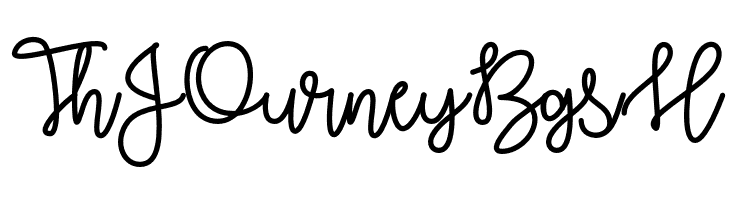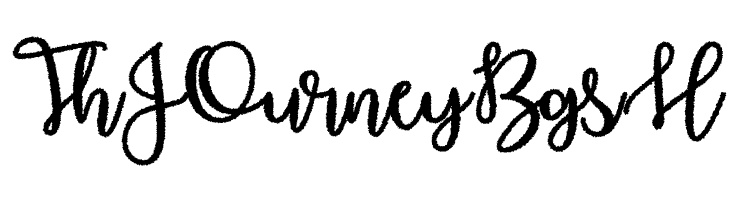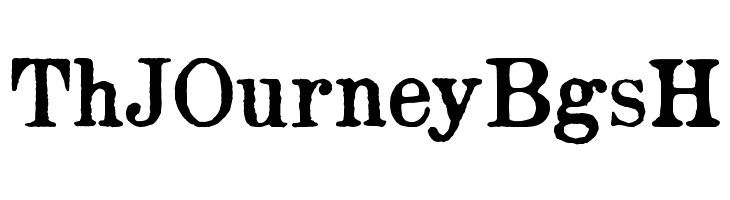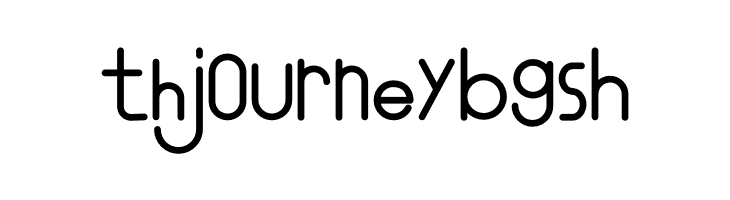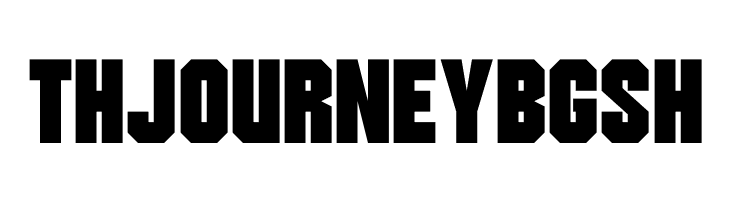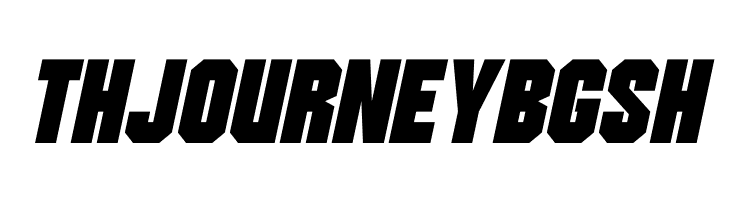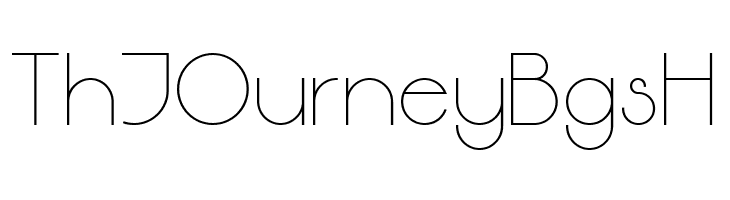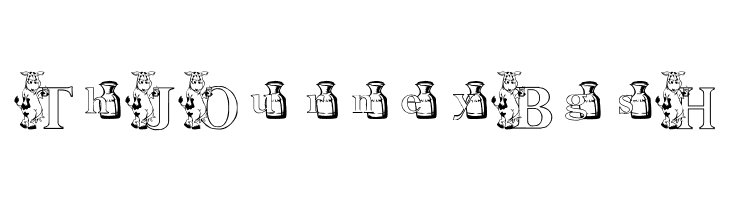
A sleek, modern font with geometric, minimalist design and thin lines.
A whimsical, cow-themed decorative font with bold, outlined characters.
A dynamic, cursive font with fluid strokes and a modern, stylish appearance.
A playful and whimsical script font with flowing, interconnected letters.
A playful, hand-drawn script font with fluid, connected letterforms.
A playful, handwritten script font with interconnected letters and moderate stroke thickness.
A bold, vintage-style font with a textured, distressed appearance.